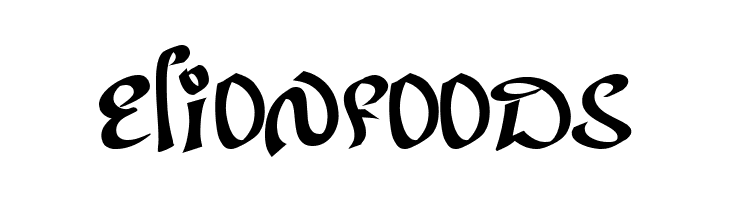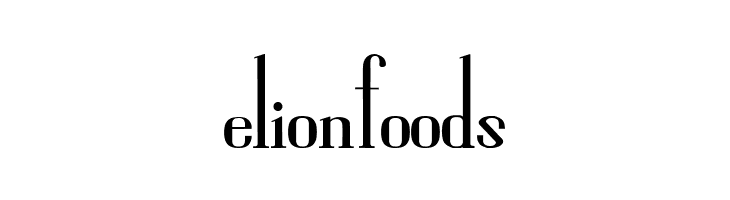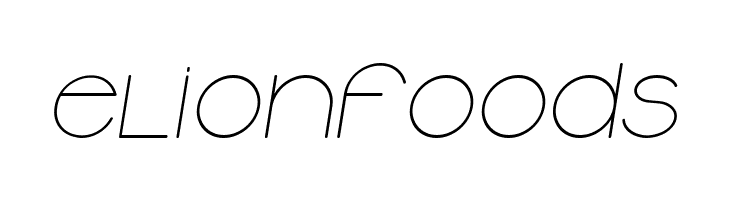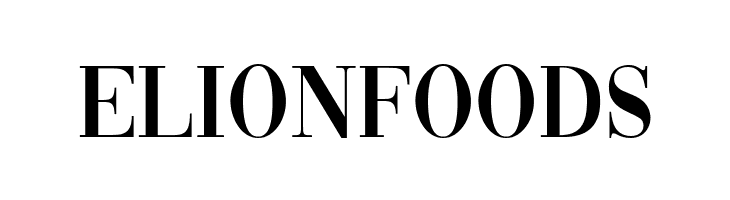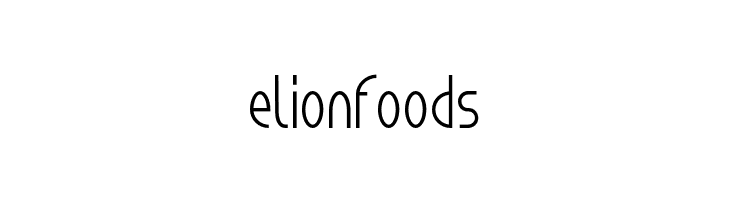
( Typodermic Fonts - Ray Larabie - www.typodermicfonts.com/ )
A sleek, italicized font with thin strokes and a modern aesthetic.
( Typodermic Fonts - Ray Larabie - www.typodermicfonts.com/ )
A sleek, italicized font with thin, elongated characters for a modern look.
( Typodermic Fonts - Ray Larabie - www.typodermicfonts.com/ )
A sleek, italicized font with a modern and elegant style.
( Vinay Suresh - www.behance.net/v9v9v9 )
A bold, dynamic font with angular and curved elements, ideal for decorative use.
( Violet MX - stocklogos.com/user/74241/store )
A tall, elegant font with a modern yet classic appeal.
( Vlad Viperov )
A modern, sleek font with elongated, narrow characters and a minimalist aesthetic.
( Vladimir Nikolic - www.coroflot.com/vladimirnikolic )
A sleek, modern italic font with thin strokes and rounded edges.
( Vladimir Nikolic - www.coroflot.com/vladimirnikolic )
Elegant serif font with high contrast and sharp serifs.
( Vladimir Fedotov )
A bold, condensed font with tall, narrow letterforms and minimal spacing.
( Vladimir Fedotov )
A modern, sleek font with tall, narrow characters and a vertical emphasis.
( Vladimir Fedotov )
A sophisticated, high-contrast font with elongated, narrow letterforms.
( Vladimir Fedotov )
A bold, high-contrast serif font with sharp edges and elegant curves.
( Walter Paggioro - www.raptuscreativi.com/site/fields/type-design/ )
A tall, narrow, and elegant font with a modern aesthetic.
( Woodcutter - woodcutter Manero - www.woodcutter.es )
A playful, collage-style font with eclectic, cut-out letter designs.
( Xerographer Fonts - Max Infeld - xerographer.blogspot.com )
A sleek, italic font with modern elegance and classic charm.
( Zetafonts - www.zetafonts.com )
A thin, italicized font with elegant and sophisticated design.
( Zetafonts - www.zetafonts.com )
A light, italicized font with a refined and elegant style.
( Zetafonts - www.zetafonts.com )
A sleek, extra light italic font with a modern and elegant style.
( Zetafonts - www.zetafonts.com )
A sleek, thin italic font with a refined and elegant style.
( Zetafonts - www.zetafonts.com )
A light, elegant italic font with smooth curves and a modern feel.